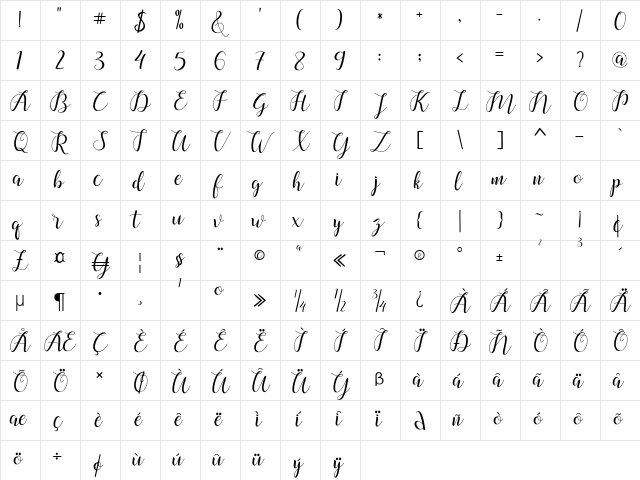
chalala script
| Style | script |
| Foundry | mrletters_muhammad rizal |
| Designer | mrletters_muhammad rizal |
Design Context for chalala Typeface
chalala flows with the natural rhythm of handwritten lettering, making it ideal for designs that call for warmth and personal expression.
Font Pairing: Combine chalala with a simple geometric sans for maximum contrast — the tension between flowing curves and clean structure is a classic typographic pairing.
Pro Tip: Use chalala for short runs of text — names, titles, or taglines. Extended body copy in script faces tires the eye quickly.